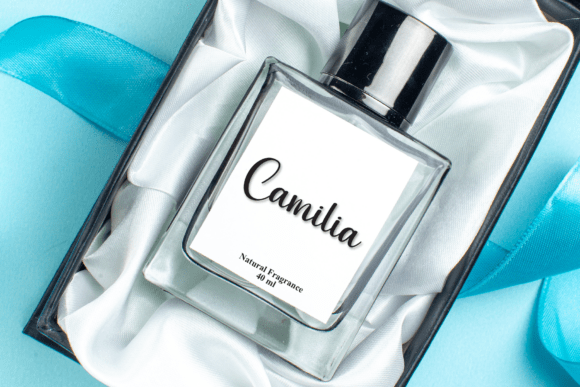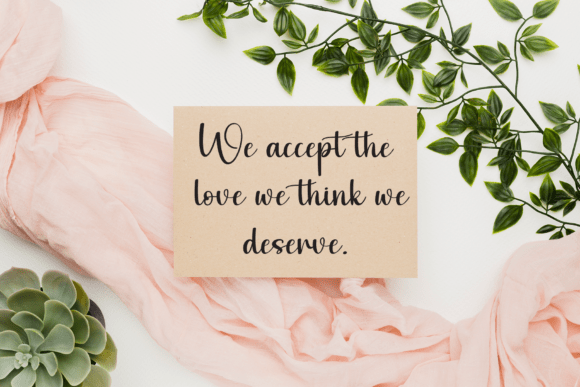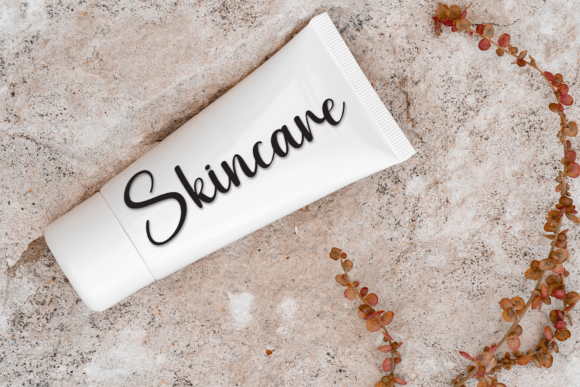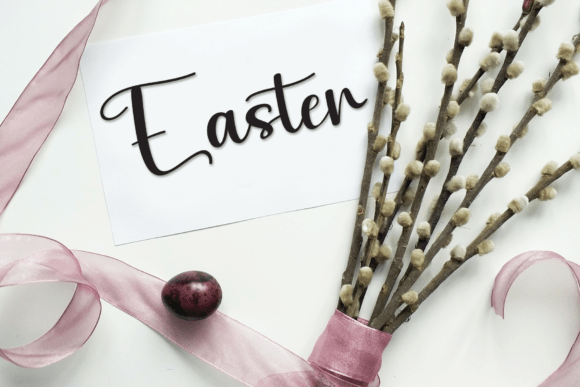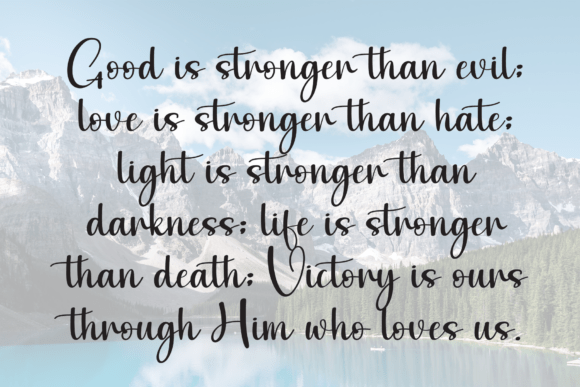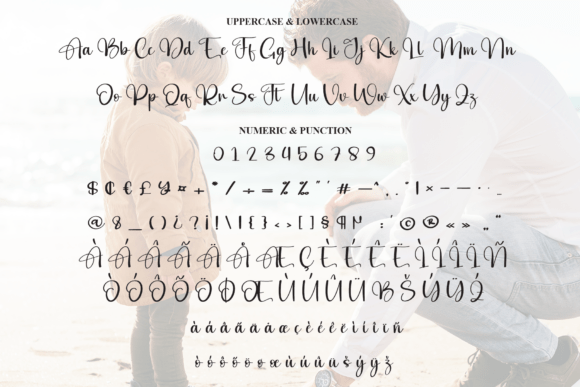
Introduction to Fathers Best Font Font
Fonts play a crucial role in design, and the Fathers Best Font font is a typeface that brings both character and versatility to any project. Whether you’re working on a branding project, a website, or a print design, the Fathers Best Font font offers a unique style that can elevate your work.
| 📌 Font Name | Fathers Best Font |
| 👤 Author | Misterletter.co |
Fathers Best is a stylish handwritten script font that captures elegance and playfulness in every stroke.
With flowing curves and a natural rhythm, it adds a personal, charming touch to invitations, branding, and social media Its graceful design brings warmth, sophistication, and creativity to any project.
Key Features of Fathers Best Font Font
Why Choose Fathers Best Font Font?
The Fathers Best Font font is more than just a typeface – it’s a design tool that helps you communicate your message with style and clarity. Its unique character set and versatile design make it suitable for a wide range of applications, from elegant invitations to bold headlines.
With its carefully crafted letterforms and balanced proportions, the Fathers Best Font font ensures readability and visual appeal across all mediums.
What makes Fathers Best Font font special?
The Fathers Best Font font stands out with its unique design, exceptional readability, and versatility across various design applications.